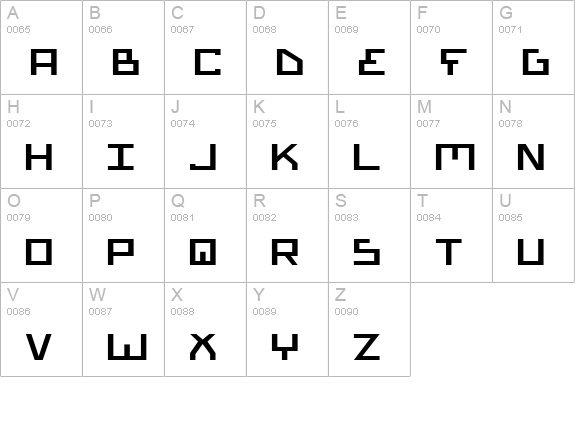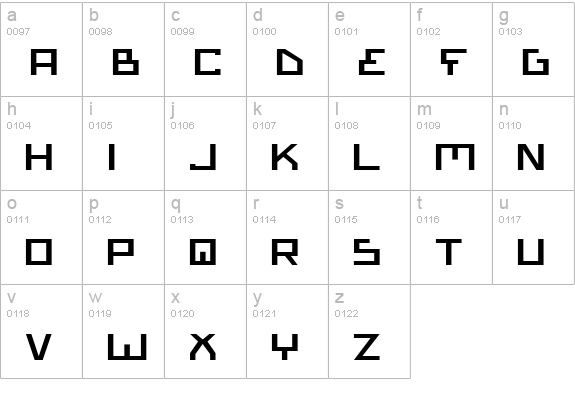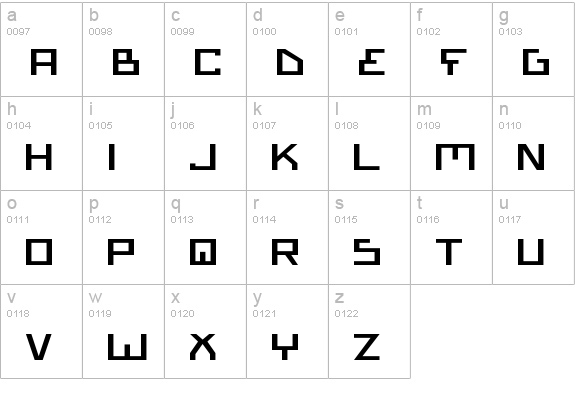
Bionic Type Expanded Font Details
Bionic Type Expanded is a distinctive, extended-width variant in the Bionic typeface family \xE2\x80\x94 well suited to design and typography projects.
Introducing the futuristic and innovative Bionic Type Expanded font, a cutting-edge typeface designed to make a bold statement in your design projects. With its sleek, modern aesthetic and sharp edges, this font exudes a sense of high-tech sophistication. Perfect for creating eye-catching logos, posters, and digital designs, Bionic Type Expanded is sure to capture attention and leave a lasting impression. What sets Bionic Type Expanded apart is not only its striking design, but also its versatility. Whether you're looking to convey a sense of progress and innovation or simply want to add a touch of modern flair to your work, this font has you covered. Its expanded width adds an extra level of impact, making it stand out from the crowd. And the best part? Bionic Type Expanded is available for free download at FontsMarket.com. That's right, you can elevate your design projects with this exceptional font without breaking the bank. So why wait? Download Bionic Type Expanded today and take your designs to the next level!